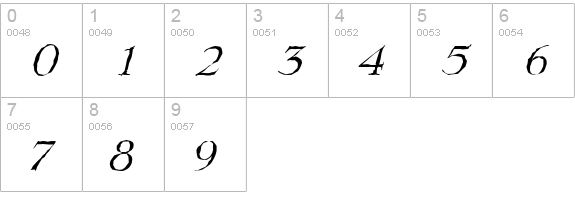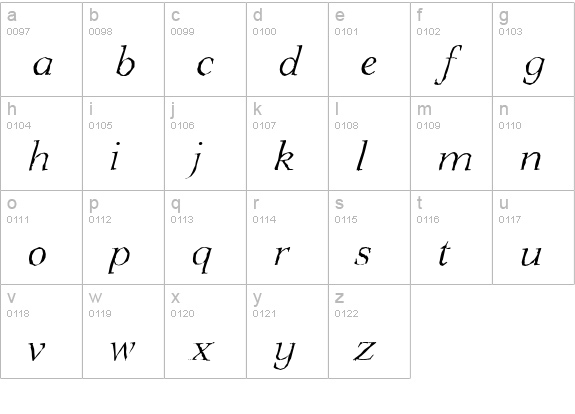
LingwoodAntique-Light-Italic Font Details
LingwoodAntique-Light-Italic is a refined, elegant, italic variant in the LingwoodAntique typeface family \xE2\x80\x94 well suited to elegant body text, refined sub-headings, and luxury branding.
The LingwoodAntique-Light-Italic font exudes elegance and sophistication with its delicate and timeless design. Perfect for adding a touch of vintage charm to your projects, this font features graceful curves and stylish letterforms that will elevate any text or design layout. The light weight and italic style of LingwoodAntique-Light-Italic font bring a sense of refinement and class to your typography. Best of all, LingwoodAntique-Light-Italic font is available for free download at FontsMarket.com. Embrace the beauty of this exquisite font and enhance your creations with its unique and captivating aesthetic. Whether you're working on invitations, branding, or editorial design, LingwoodAntique-Light-Italic font is sure to make a lasting impression. Download it today and add a touch of timeless elegance to your projects.